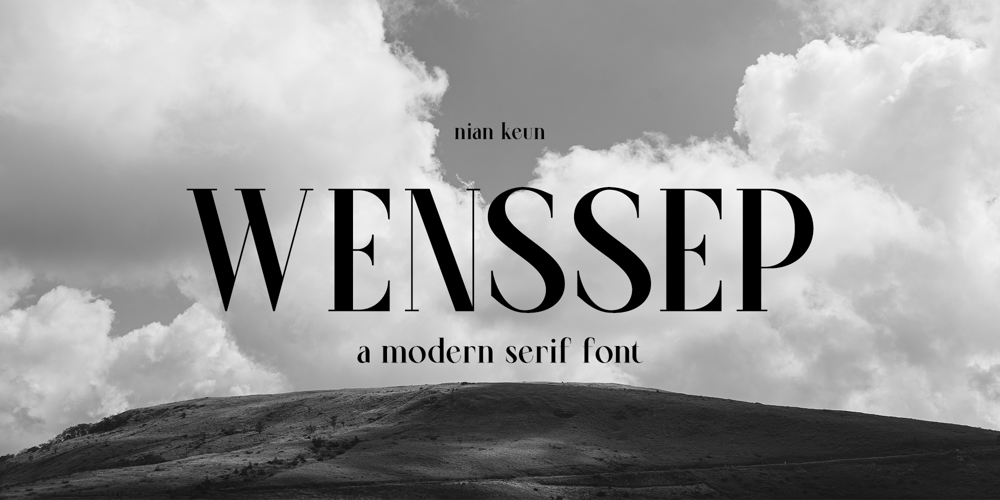
Wenssep Font Family was designed by Mugi Raharjo and published by Nian Keun Studio. Wenssep contains 1 styles and family package options. Wenssep is a font with character that is elegantly made for those of you who like fonts with luxury with a firm and neat wrapping. This font will make your designs have more value than you have, In particular, you can use this font in logos, graphic designs, magazines, identity branding, fashion brands, clothing, and many others.If you want to explore with this font, you can apply it to Instagram banners, skincare, or movies.Thank you for coming to my shop and enjoying other fonts.